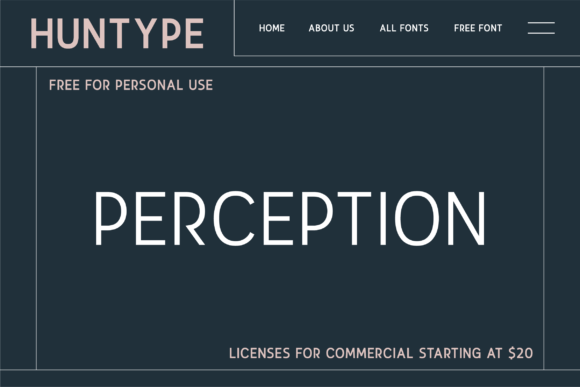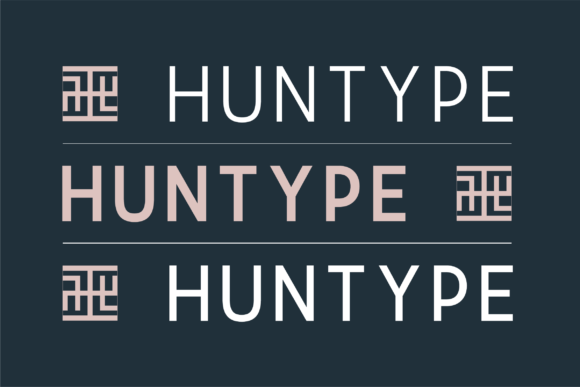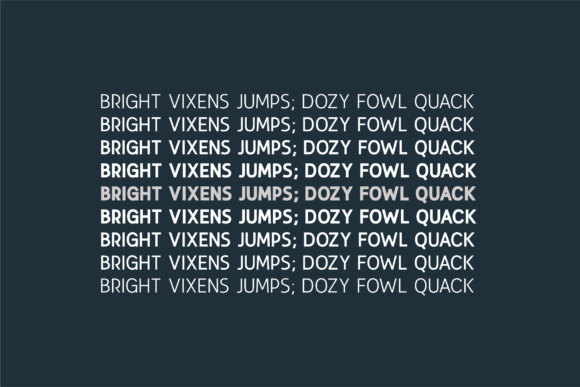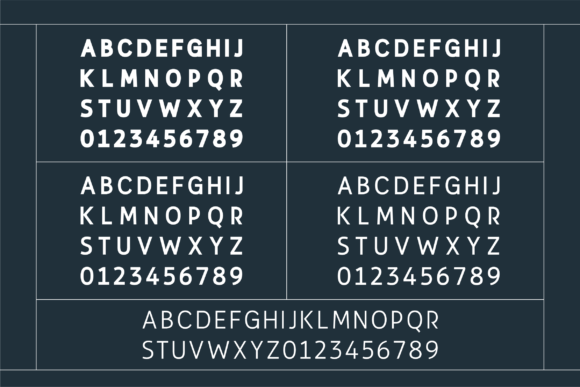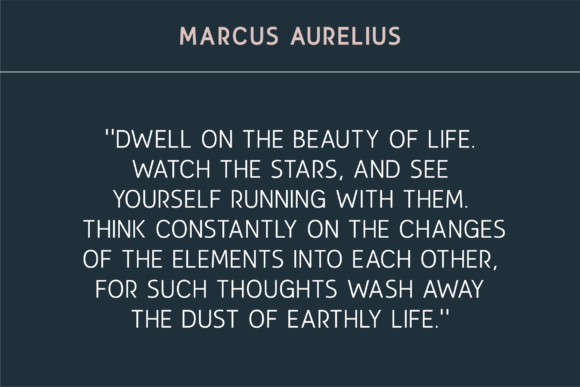
Introduction to Perception Font
You’ve finally landed on the perfect image for your creative project, but something’s missing. A delicate touch, a subtle whisper that elevates your design from good to great. That’s where the Perception Font comes in – a finely-woven font family that’s been crafted to bring your vision to life. With its selection of five unique weights, from THIN to BLACK, you’ll have the creative freedom to experiment and push the boundaries of your design.
As a designer, you know how crucial it is to have a reliable design resource that can keep up with your high standards. That’s why the Perception Font is a game-changer. Its contemporary flair and distinctive sophistication make it the perfect addition to any creative project. Plus, its high-quality design ensures that your work exudes a unique radiance that’s sure to turn heads.
Key Features of Perception Font
- Comes with a transparent background, making it ideal for use on various design elements.
- Features a clear and legible font with a resolution of 300 DPI, suitable for print and digital use.
- Supports a wide range of languages, making it a versatile choice for international projects.
- Available in a single font size, with a scalable design for easy customization.
- Designed to be a clean and modern sans-serif font, perfect for modern design projects.
Honest Review: Perception Font
I recently had the chance to work with the Perception Font, and I must say it’s been a great addition to my design resource library. One of the things that caught my attention was its high quality and versatility, making it perfect for any creative project.
Here are some things that I think work well with the Perception Font:
- Its transparent background allows for seamless integration with any design element.
- The font’s elegant and modern design makes it perfect for any high-end project.
However, I did encounter a few limitations while using the Perception Font:
- It’s a bit on the heavier side, which can make it difficult to read in small text sizes.
- The font’s design can be a bit too minimalist for some projects.
Overall, I’m really impressed with the Perception Font and would definitely recommend it to fellow designers. Its high quality and versatility make it a valuable addition to any design library.
Tips for Getting the Most Out of Perception Font
To get the most out of Perception Font, use it with a transparent background to create a high-quality design. You can also experiment with different font sizes, colors, and styles to create a unique and creative project.
Perception Font is a versatile font that can be used in various design projects, such as:
- Business card design
- Brochure design
- Poster design
- Website design
Alternatives to Perception Font
Open Sans is a modern sans-serif font suitable for a variety of creative projects, including business cards, websites, and brochures. It’s a high-quality design resource with a transparent background, making it ideal for logos and other design elements. When to use: For projects that require a clean and minimalist aesthetic.
Compared to Perception Font, Open Sans has a more straightforward and simple design, making it a great alternative for projects that don’t require a unique, artistic feel. It’s a free download and compatible with most operating systems.